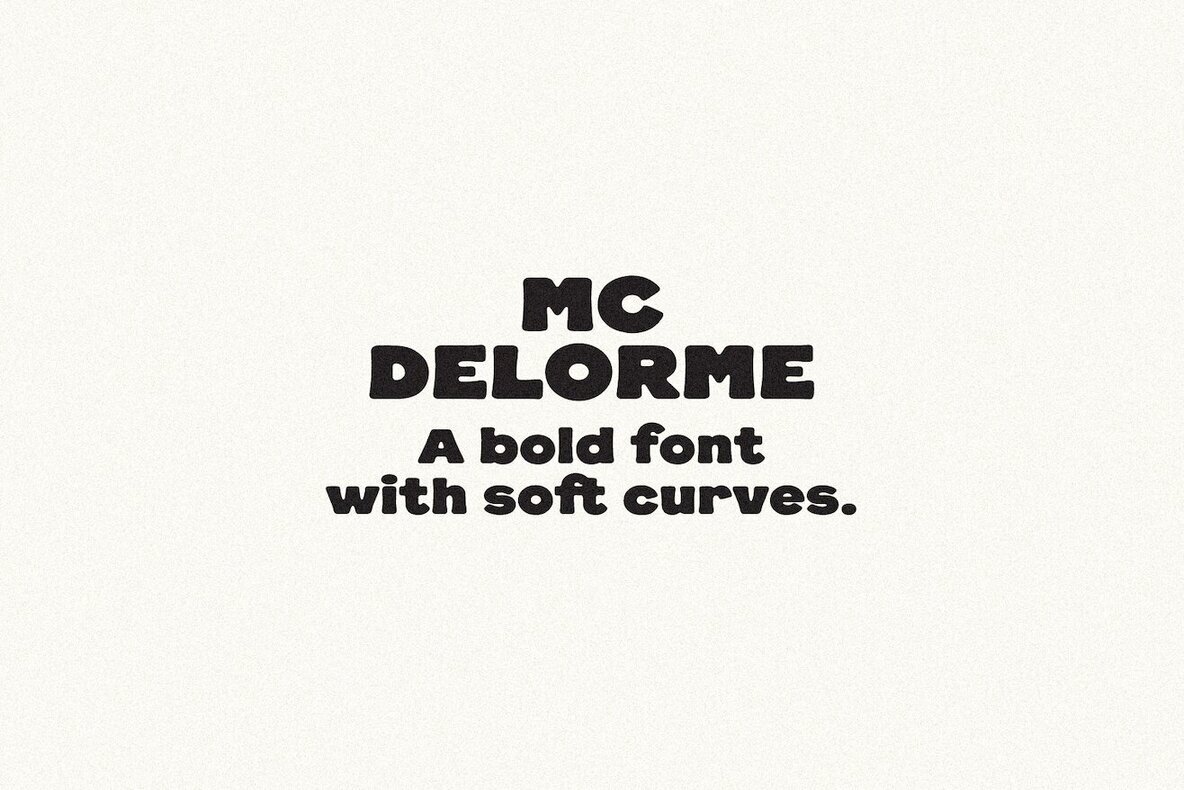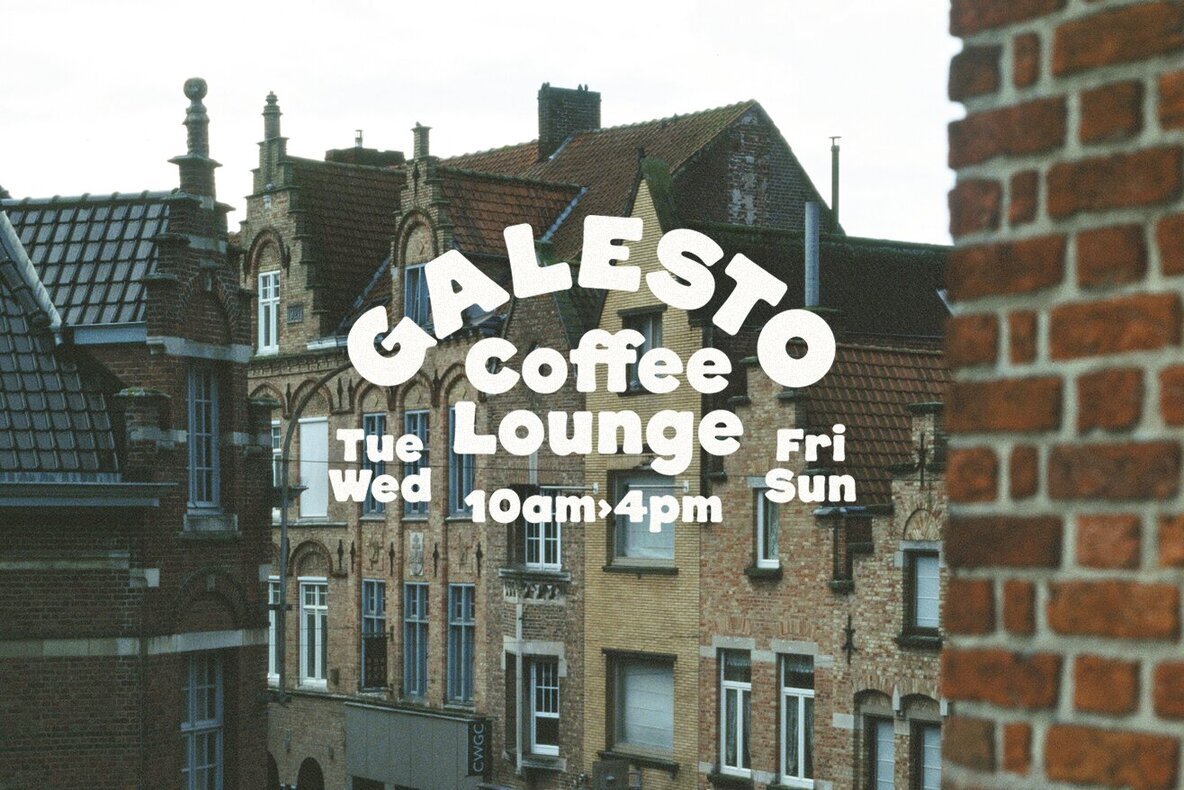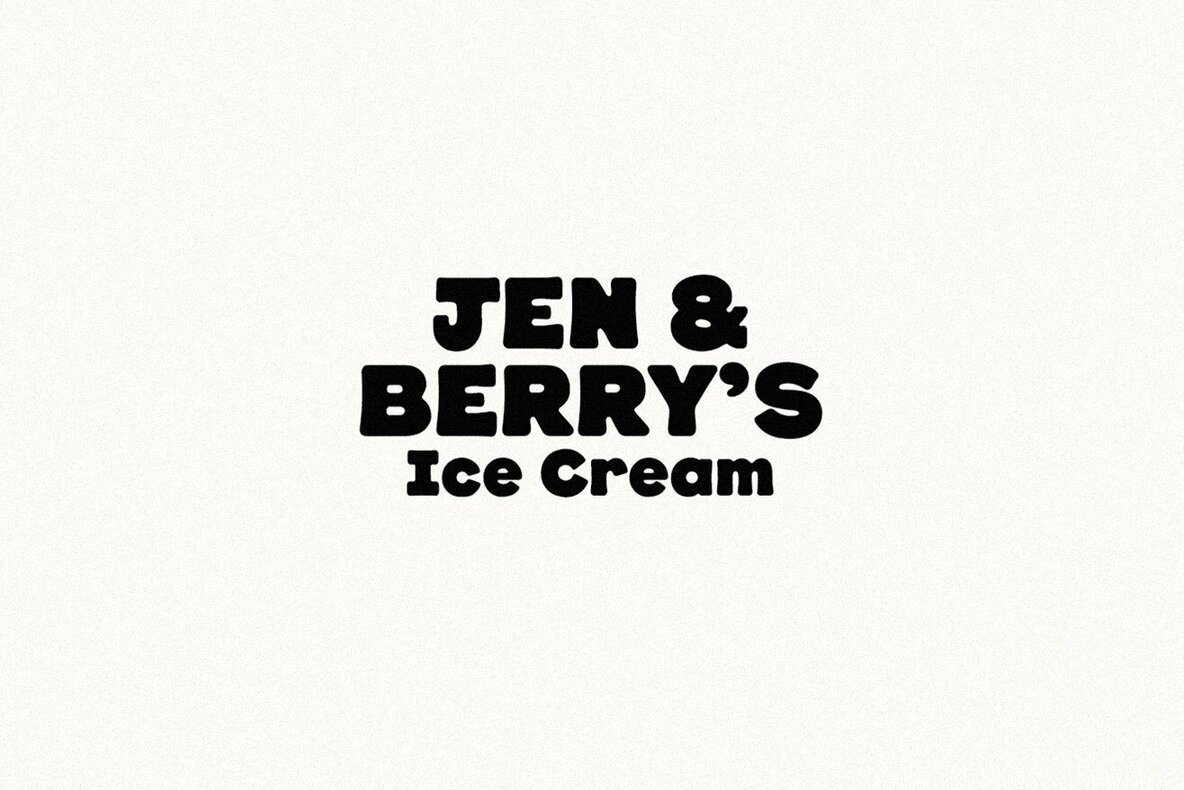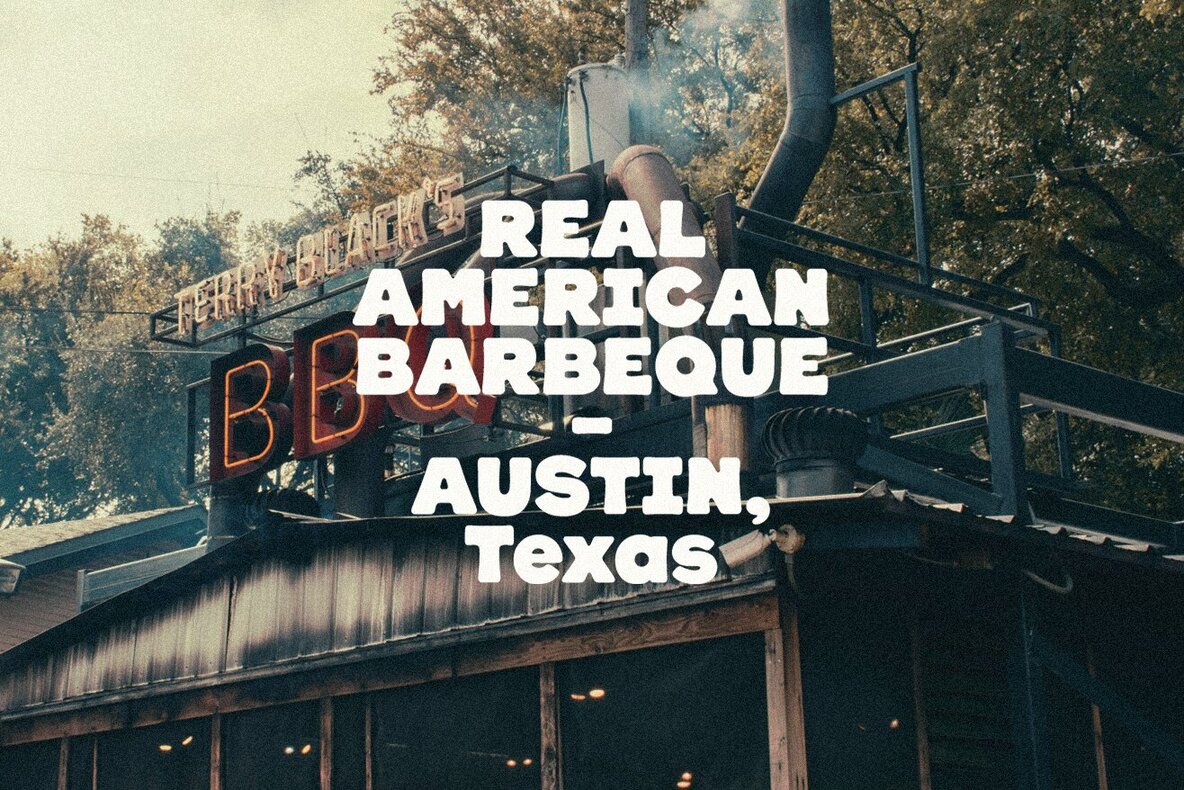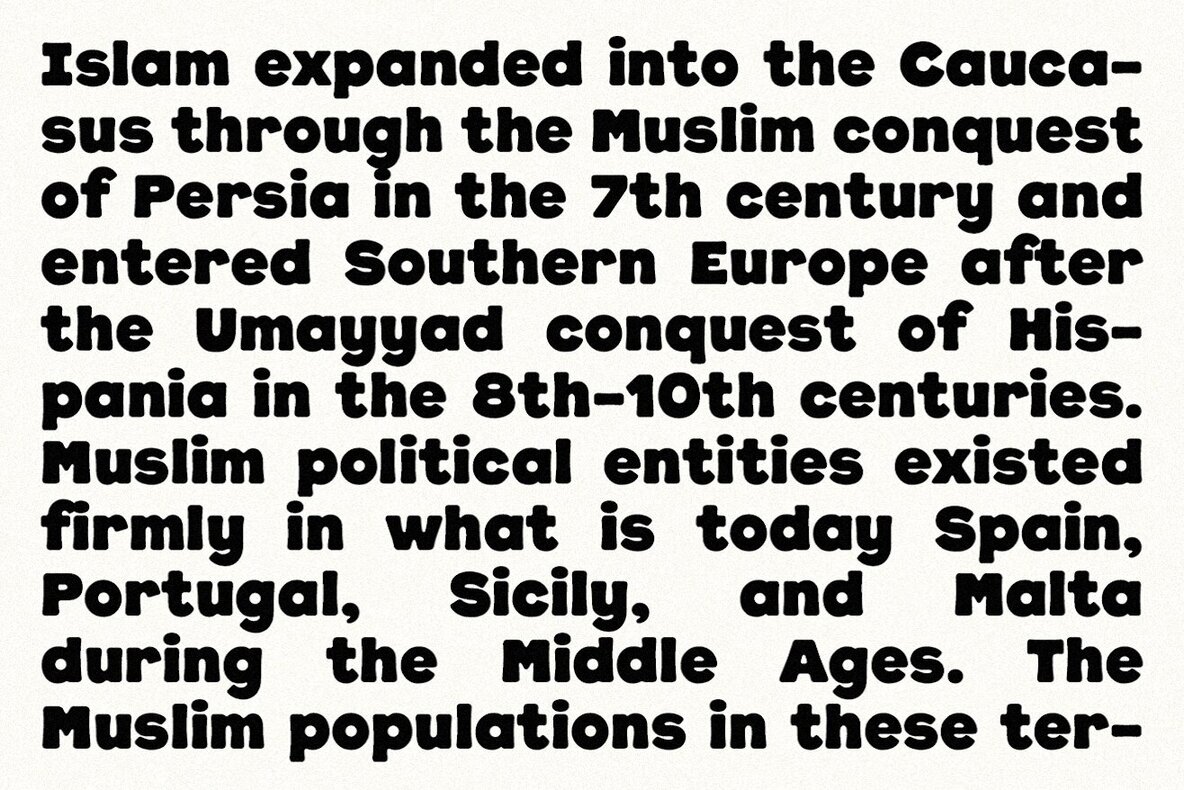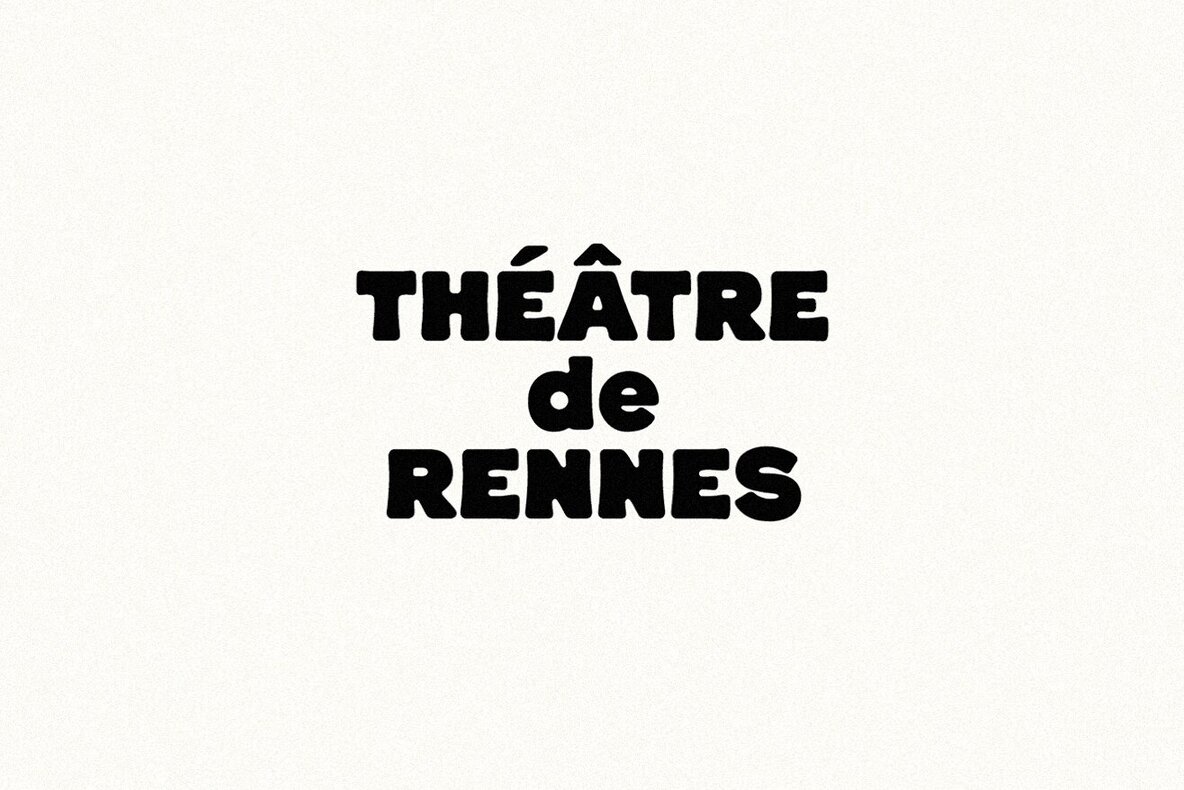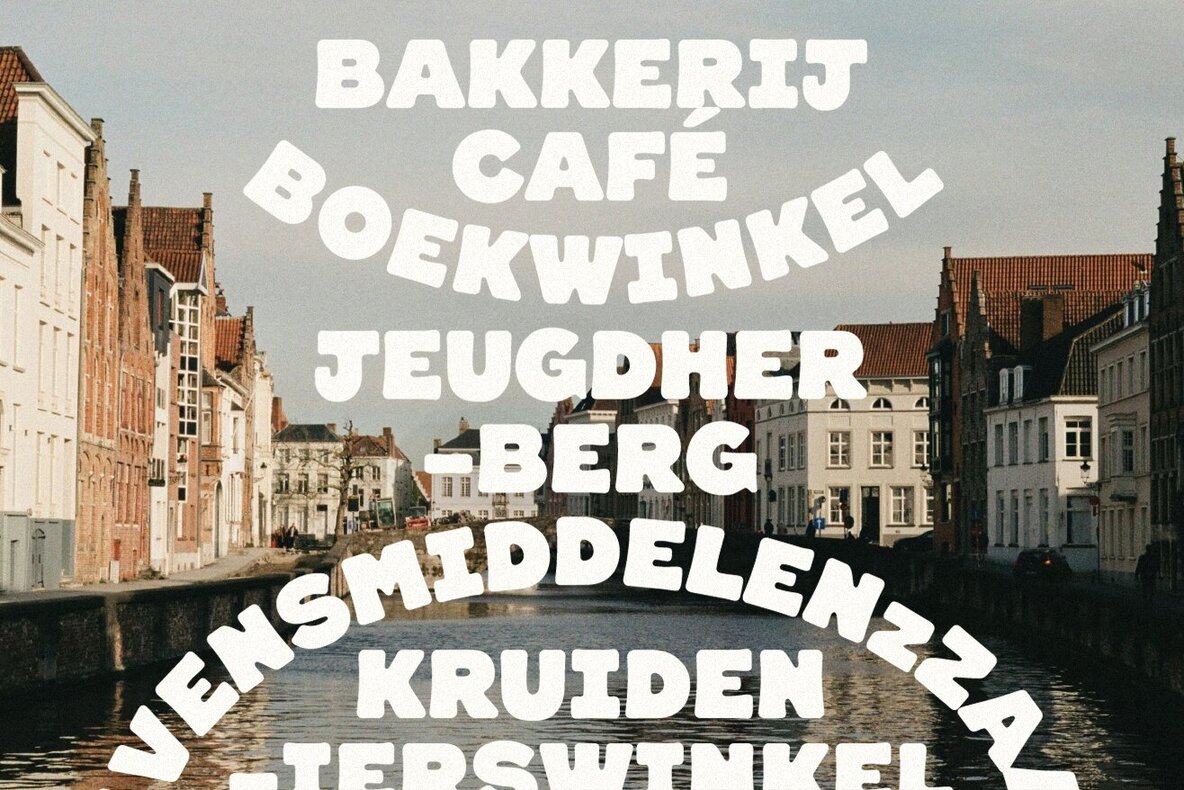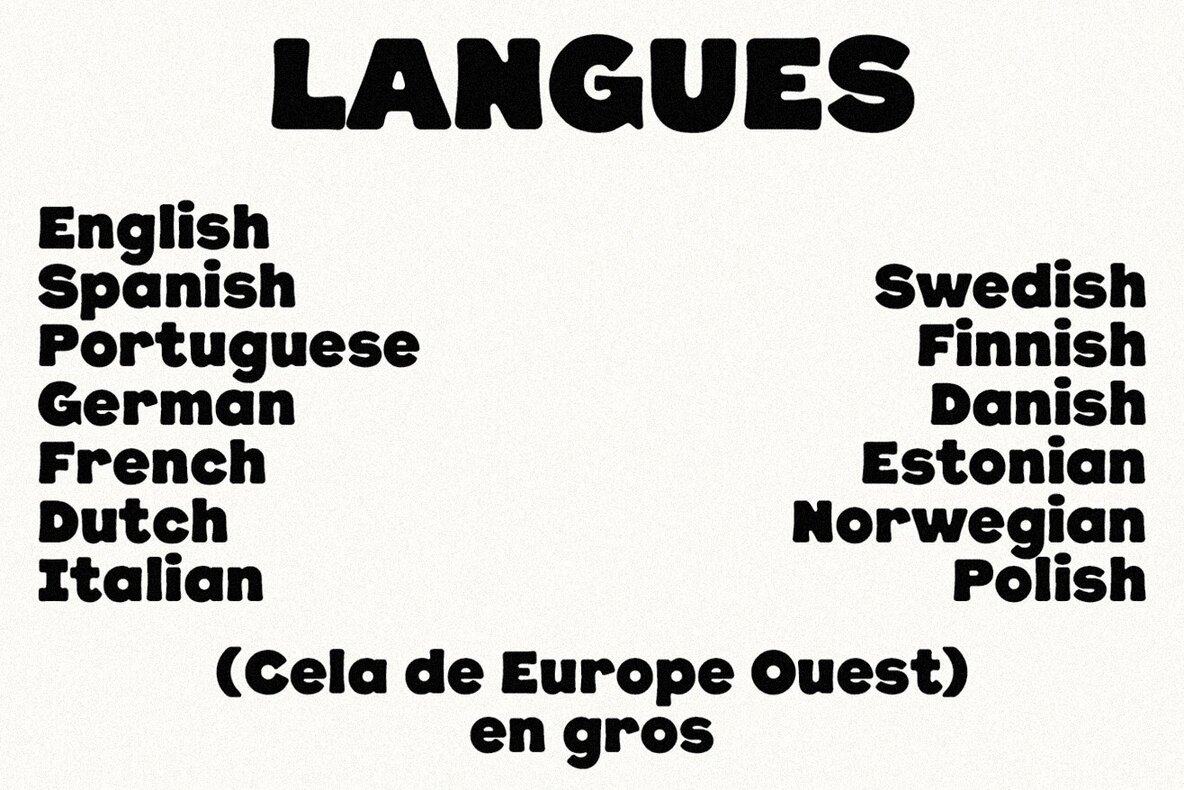
MC Delorme Font
MC Delorme
MC Delorme embodies a straightforward yet artistic design, offering effortless retro-indie flair. This hand-drawn typeface is ideal for diverse applications, such as posters, labels, or badges, adding an authentic touch to any project.MC Delorme: Organic Hand-Drawn Typeface